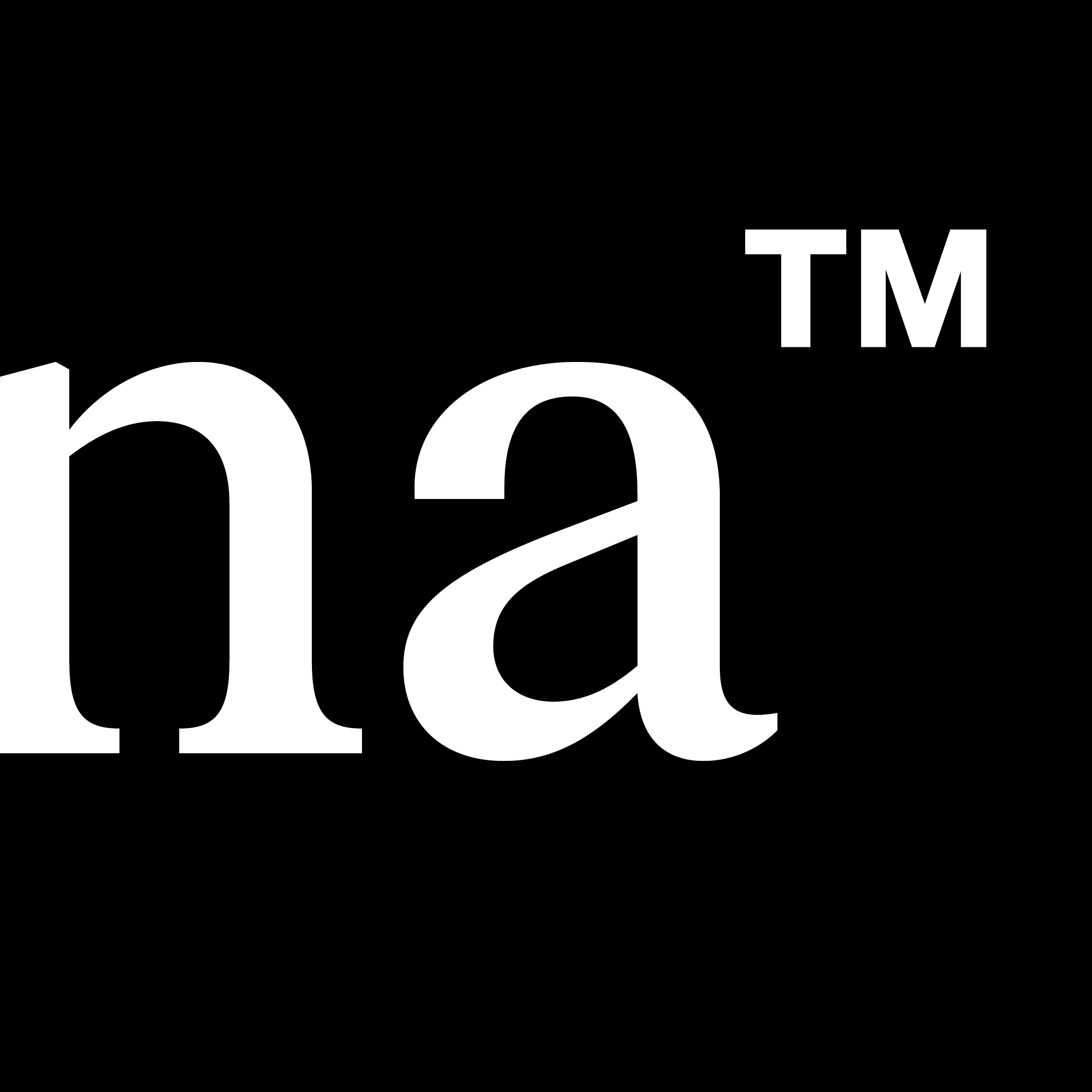
Icona Serif
Neutral typefaces offer numerous practical benefits in graphic design, making them a valuable choice for various projects. Their key advantage is versatility, as they seamlessly adapt to different media and design contexts, whether in digital or print formats. This adaptability makes them a powerful and flexible tool in any designer’s arsenal.
Understandably, their advantage is legibility. These fonts are designed with good legibility in mind, ensuring that text is easily readable in different sizes and formats. This makes them ideal for body text in long documents, web pages, and other contexts where legibility is key.
Icona Serif is a neutral typeface with a high x-height, a wide range of weights with adequate italics, and an extensive character set covering Latin, Cyrillic, and Greek. Many alternative characters find use in changes of typesetting character, but they stand out especially in display sizes, where they can attract attention even in a seemingly serious presentation.